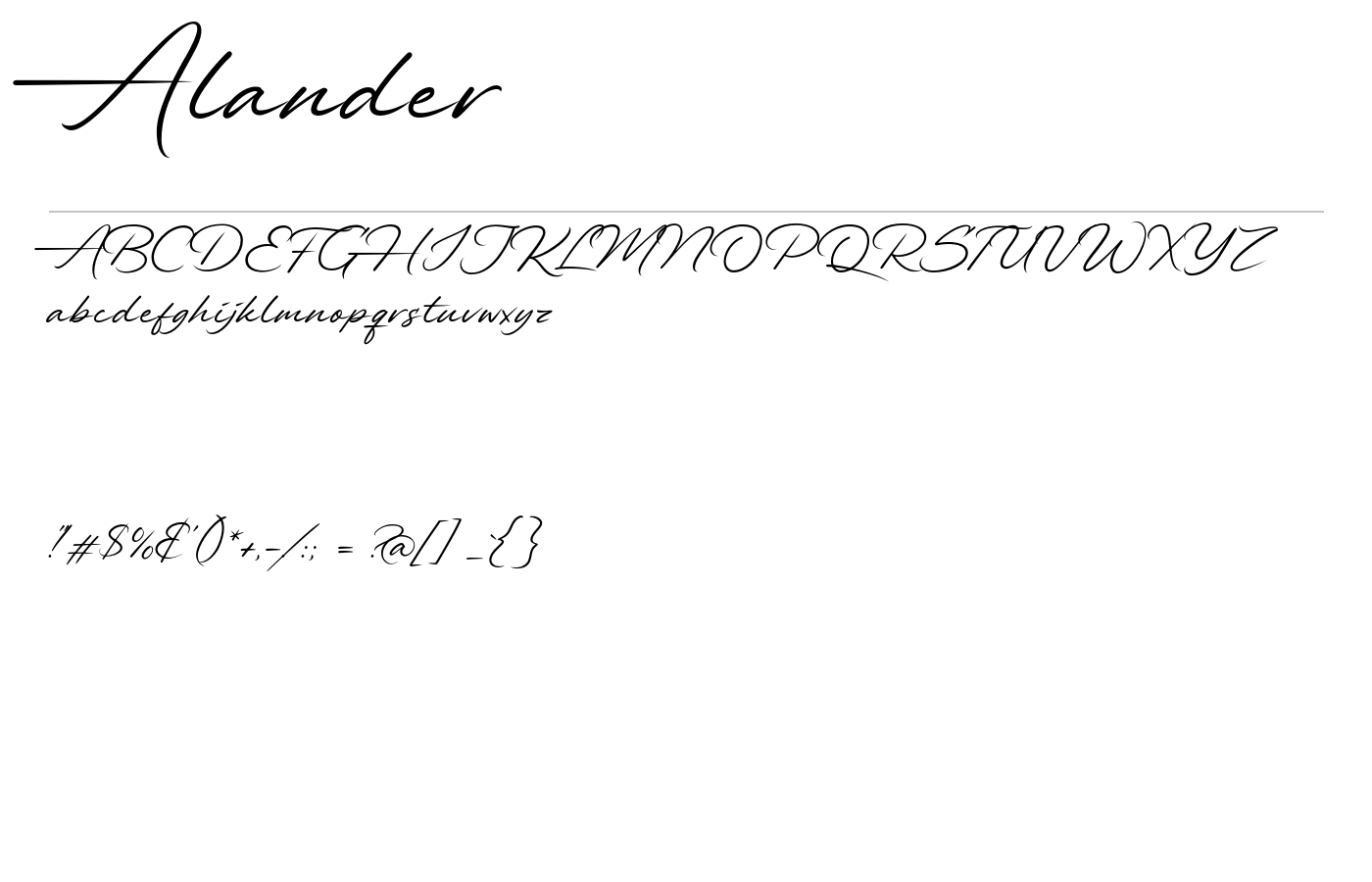
Alander is an elegant, thin script font with a refined and flowing handwritten style that exudes sophistication and charm. Its delicate strokes and smooth connections make it perfect for upscale branding, invitations, and editorial work where a graceful and personal touch is desired. This font shines in contexts that benefit from a stylish yet subtle appearance, especially in logos and headlines that aim to convey elegance and creativity.
Alander Font
About Alander Font